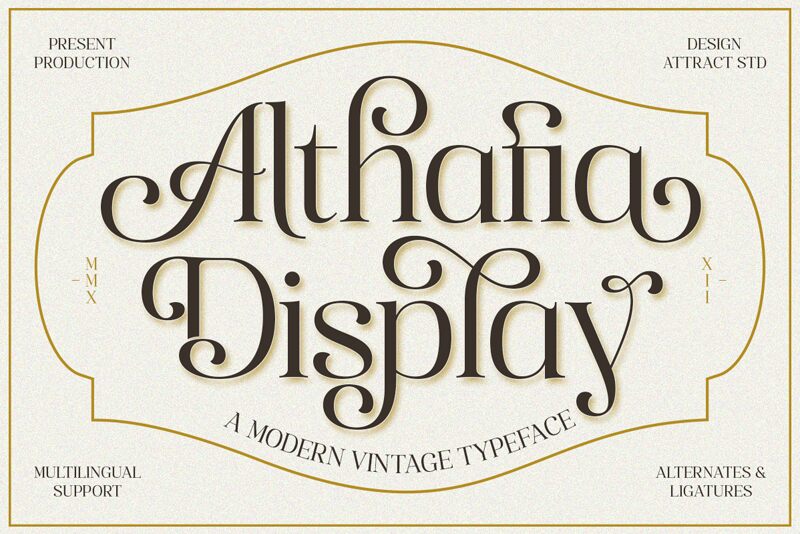
Althafia Display font, designed by Attract Studio, captivates with its refined serif elegance and distinct flair. This font radiates a sophisticated charm, featuring gracefully elongated strokes and a striking balance that draws the eye. Its light, airy feel juxtaposes beautifully with bold elements, making it ideal for creating stunning visual hierarchies.
The playful curves and flourishes add a touch of modernity to its classic roots, resulting in an aesthetic that feels both timeless and contemporary.
Perfect for high-end branding, elegant invitations, or artistic projects seeking an upscale touch, Althafia Display excels in contexts where style meets substance. It communicates sophistication effortlessly while ensuring legibility-a true asset for any designer aiming to make a memorable impression.
Althafia Display
Attract Studio
Muammar Kadafi